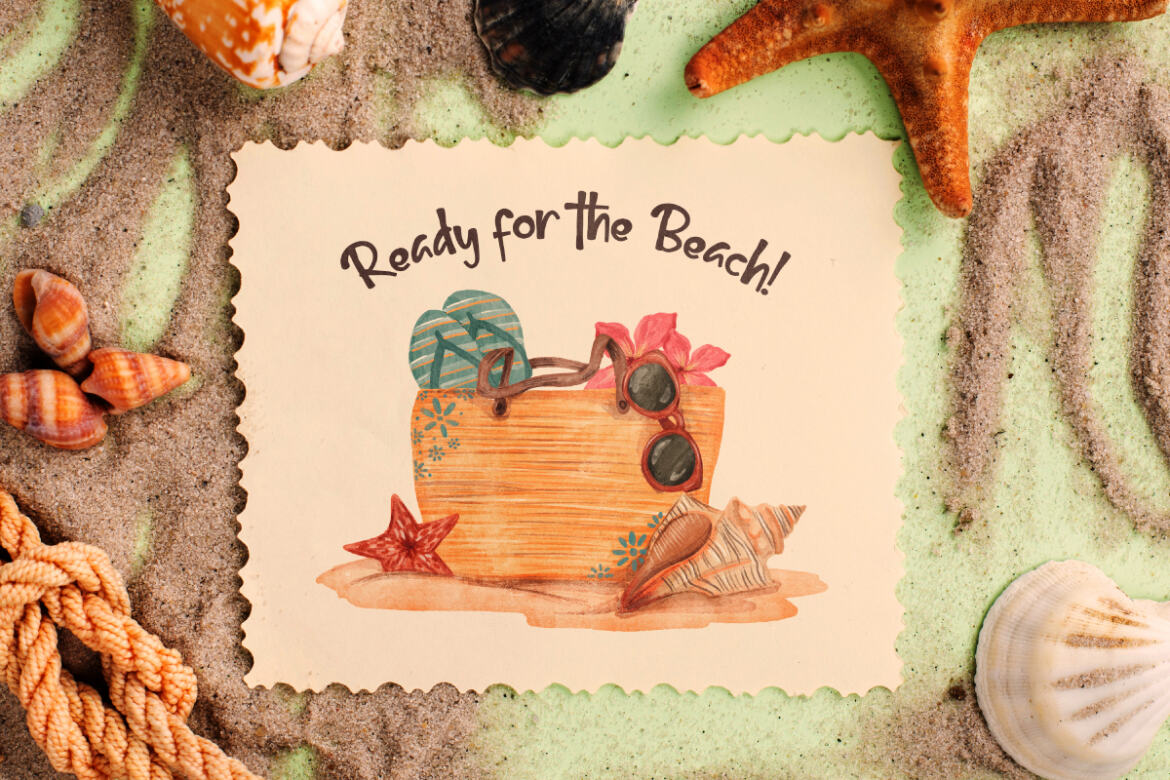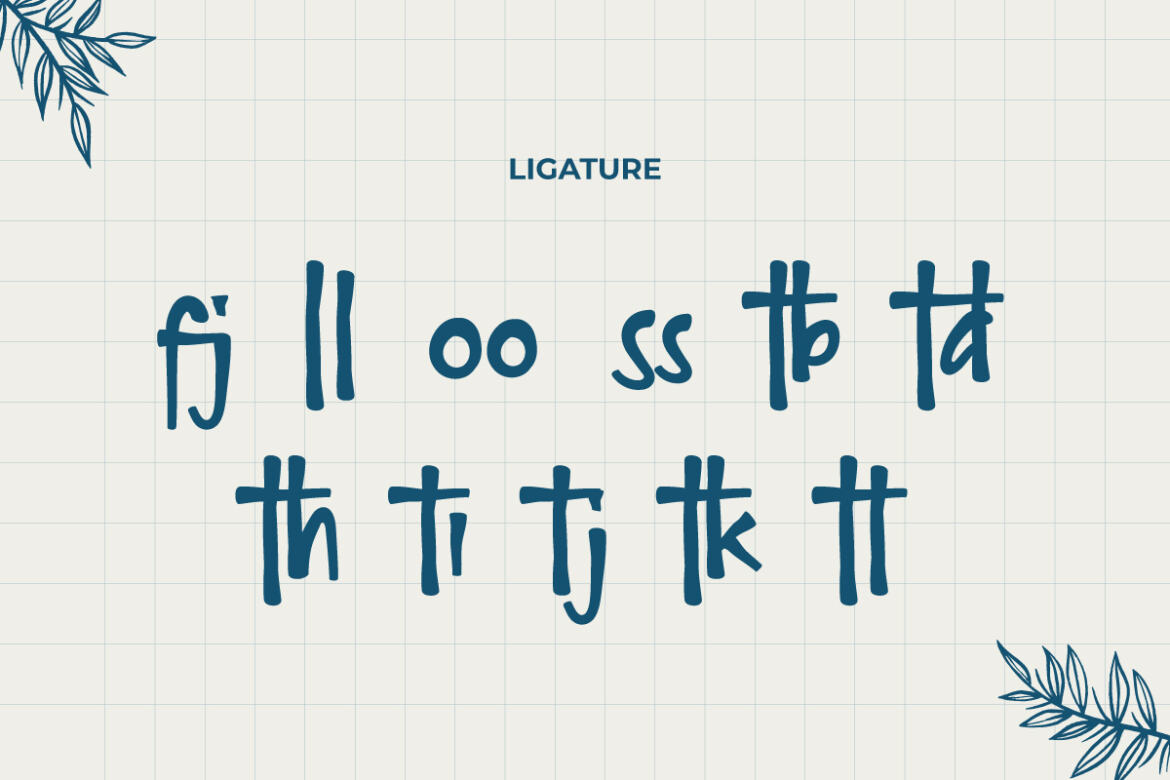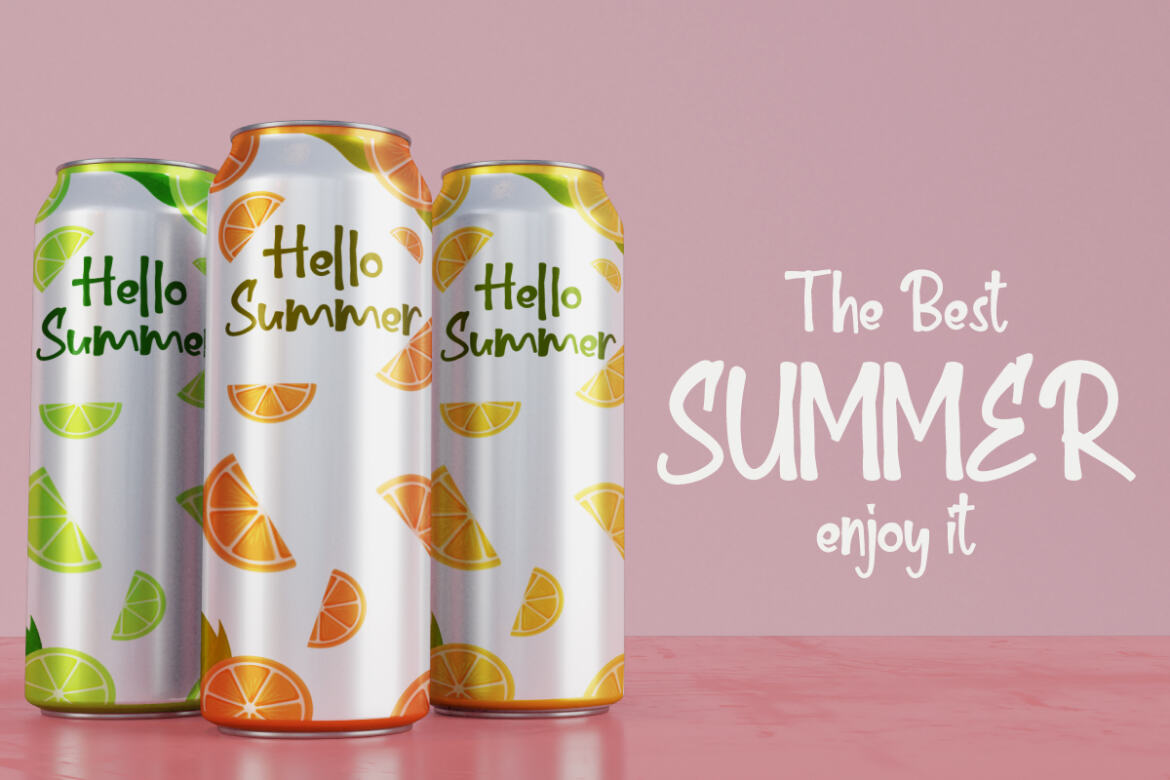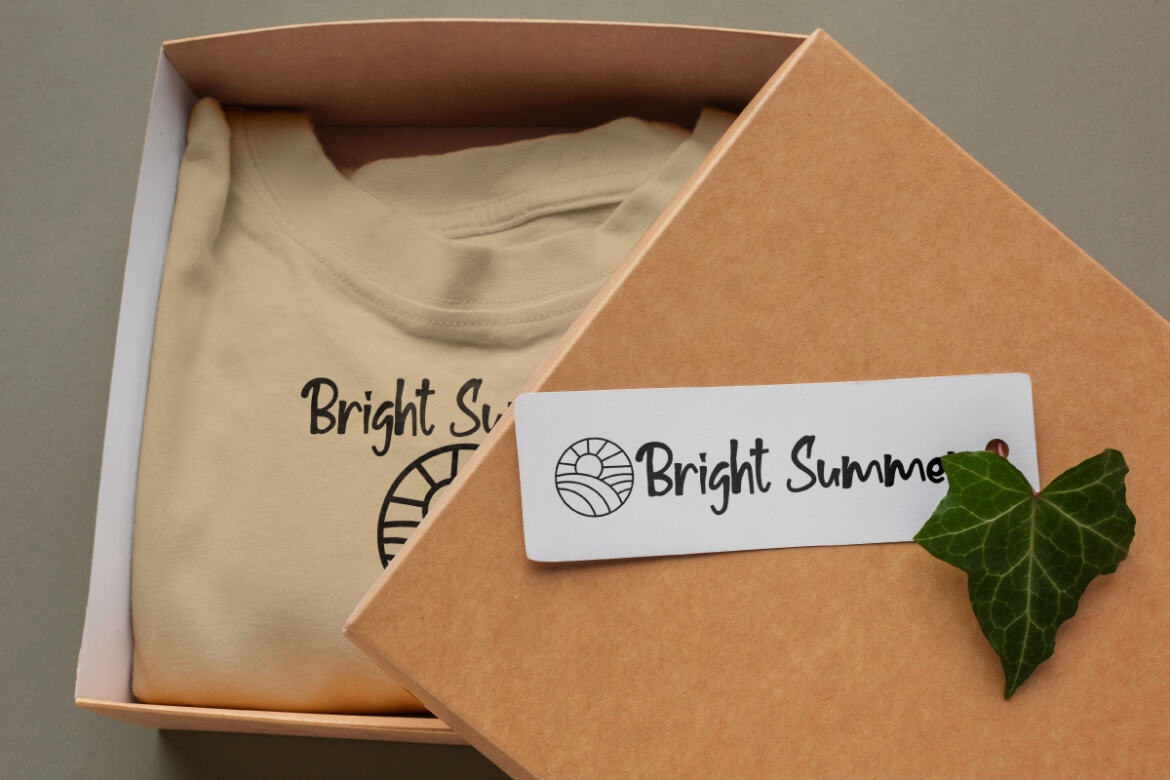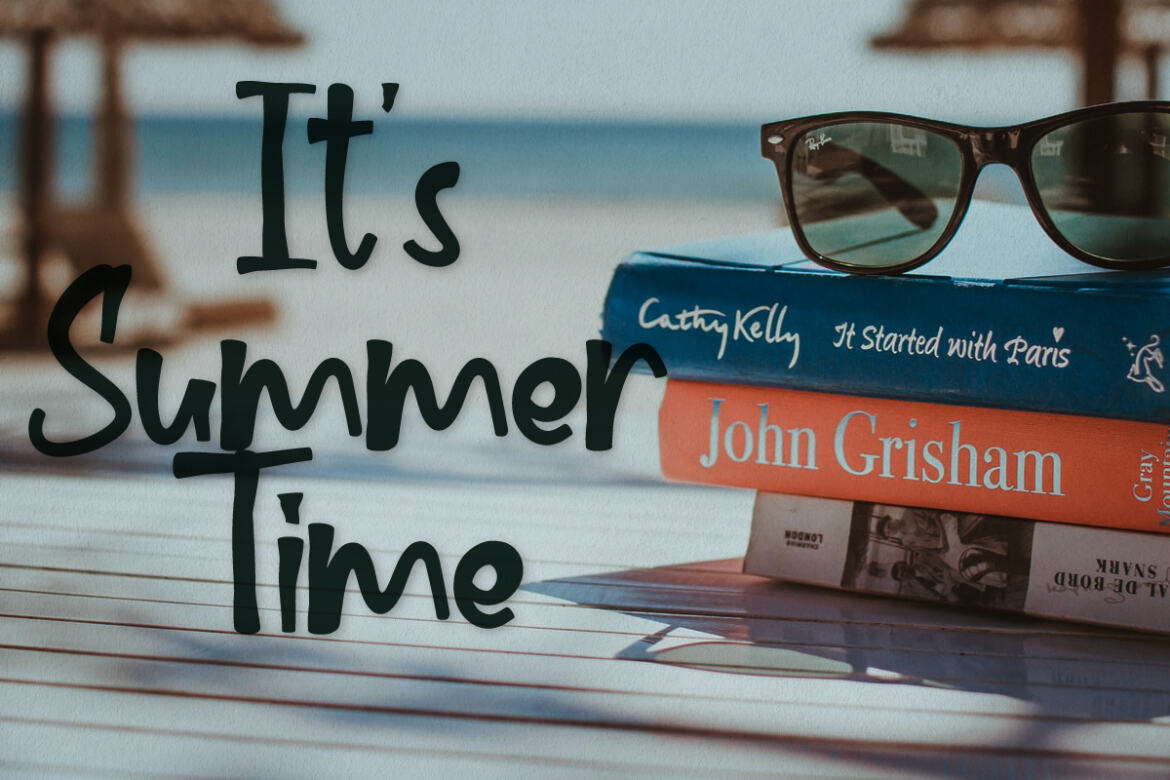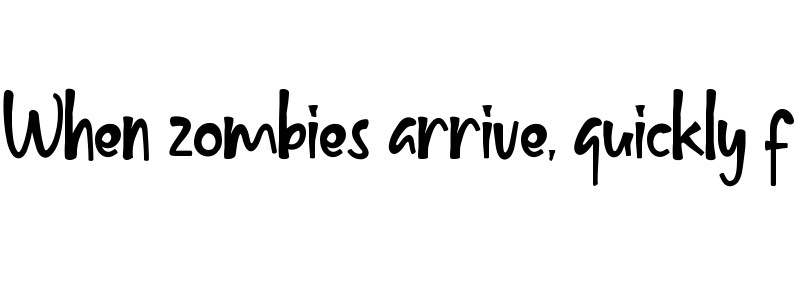
Bright Summer FREE Font
Bright Summer
Bright Summer Font is a handwriting display font. This font will be perfect for logo branding, lettering, products packaging, signage, title etc. There are many industries that is suitable for this font: clothing, food and drink, game, kids, school, toys etc Here’s what you’ll get on the zip pack :